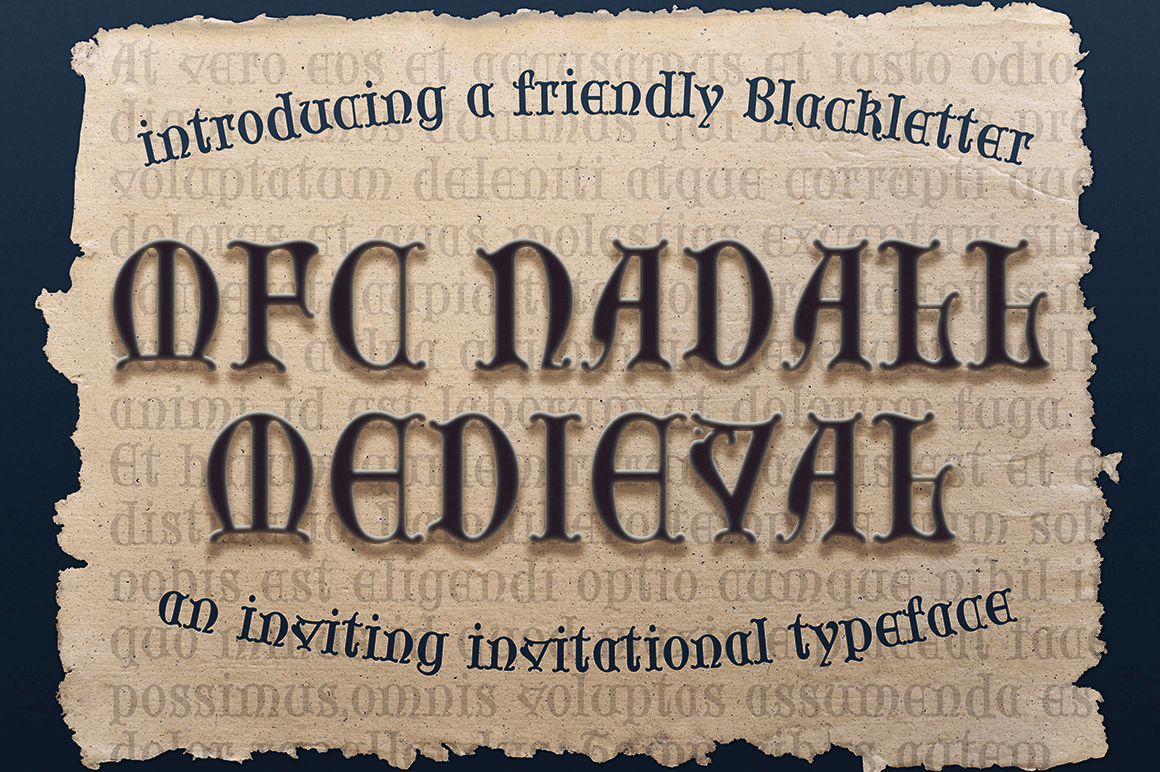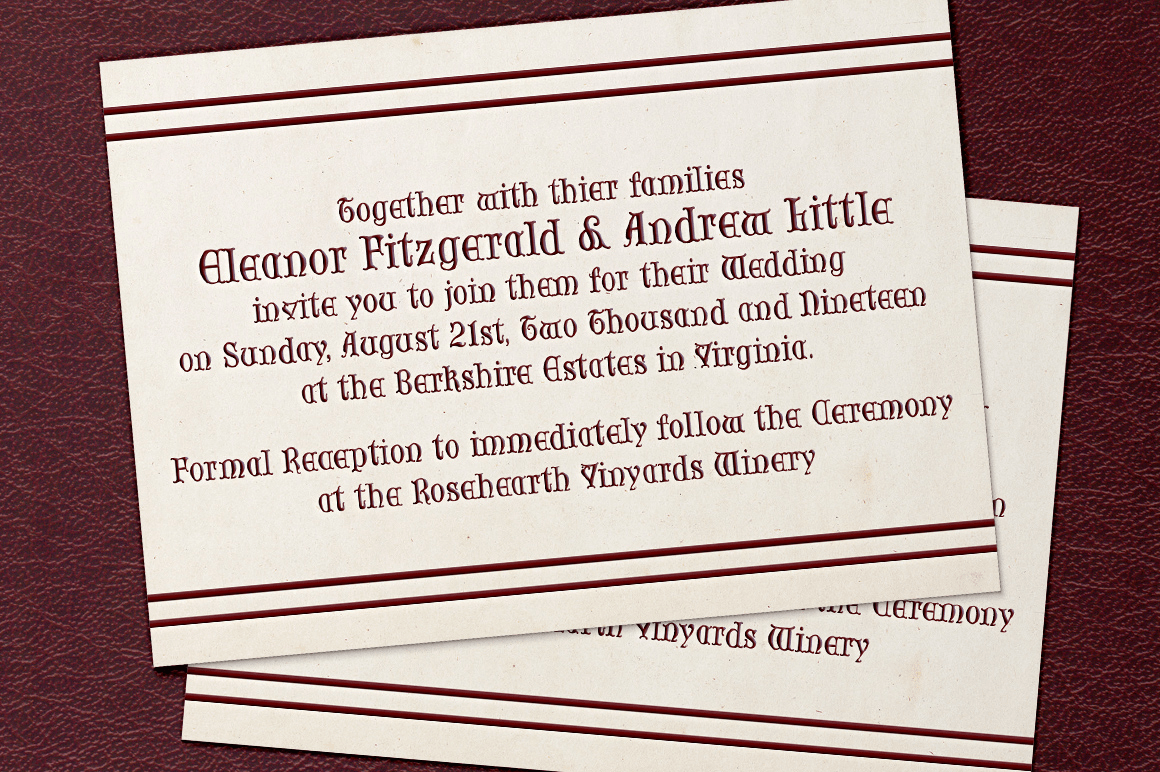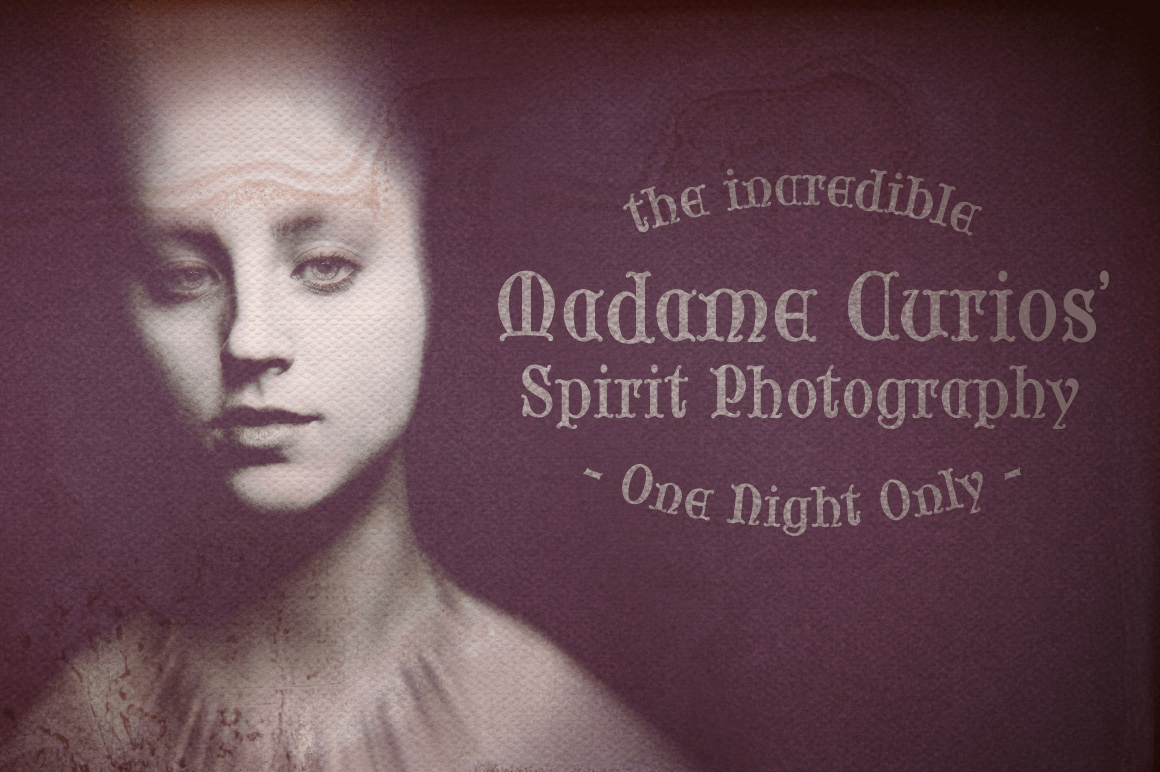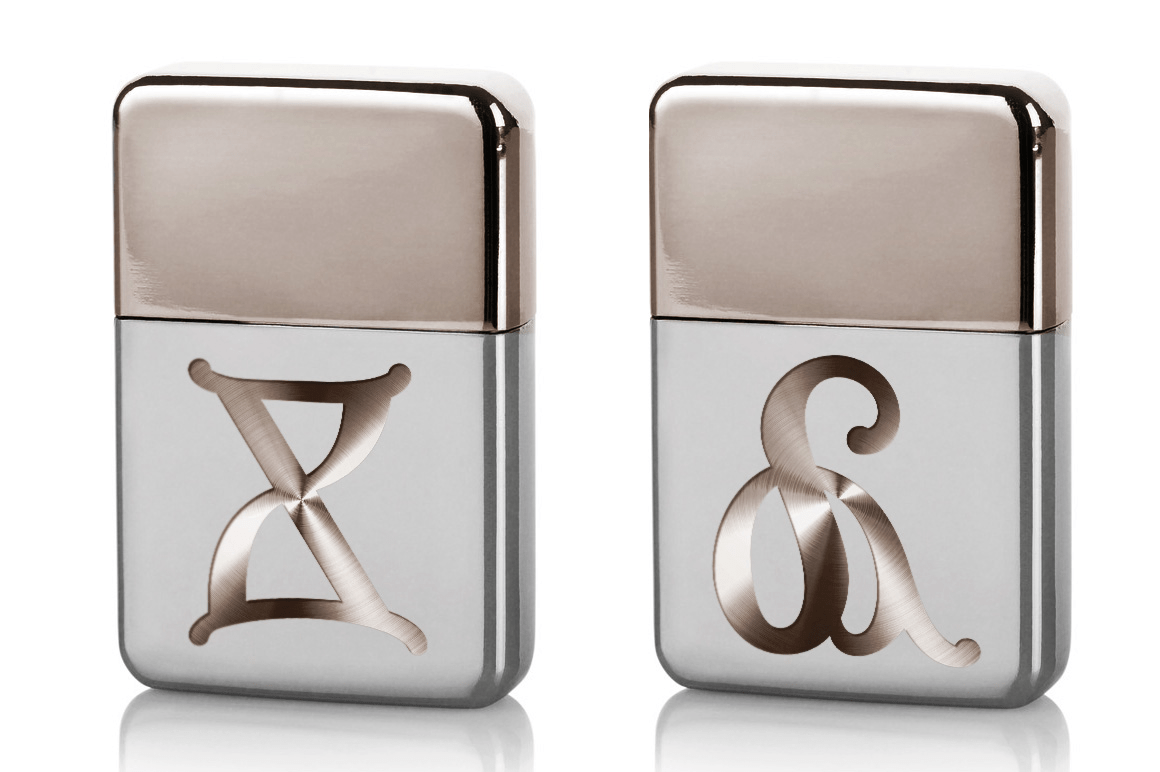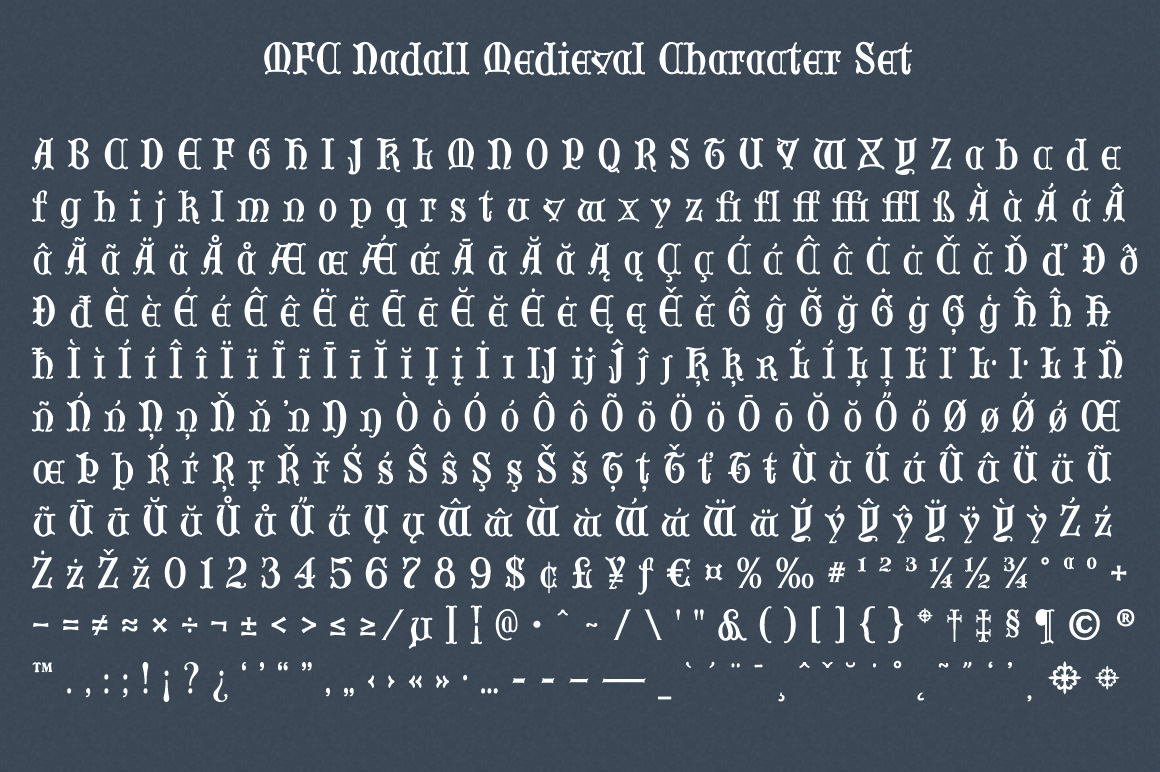
MFC Nadall Medieval
Font Family by Monogram Fonts Co
MFC Nadall Medieval was originally designed by Bernard William "Berne" Nadall for Barnhardt Brothers & Spindler back in 1885 under the name "Faust Text" and later under the "Missal Text Series". While you could use its capitals to construct an initial monogram, this is not a monogram font, but instead a fully functional typeface for invitations and period lettering. This lettering style has been precisely recreated and expanded on to create a full typeface with a small collection of ligatures.
- 397 glyphs in MFC Nadall Medieval - including Capitals, Lowercase, Numerals, Punctuation and an extensive character set that covers multilingual support of latin based languages. (see the last graphics for a preview of the characters included)
- Ornaments - two ornament glyphs.
- Ligatures - for ff, fi, fl, ffi, and ffl combinations.